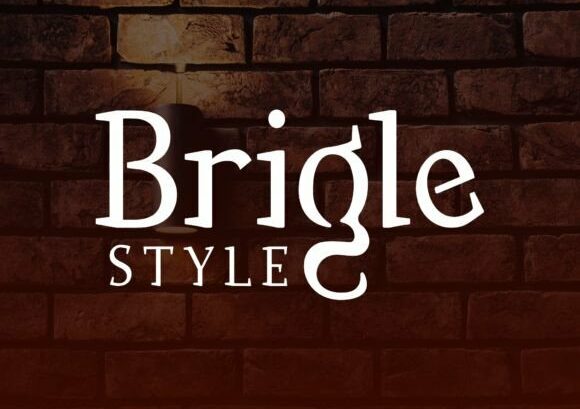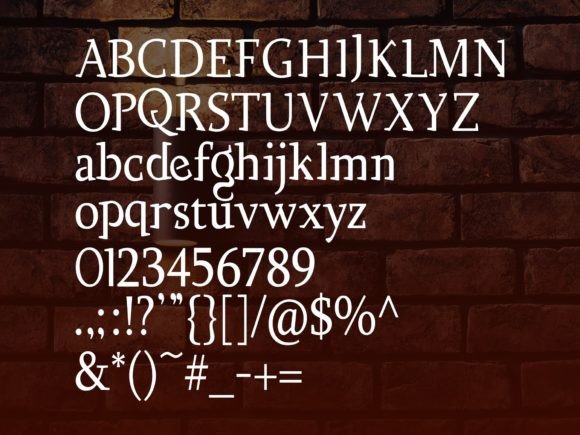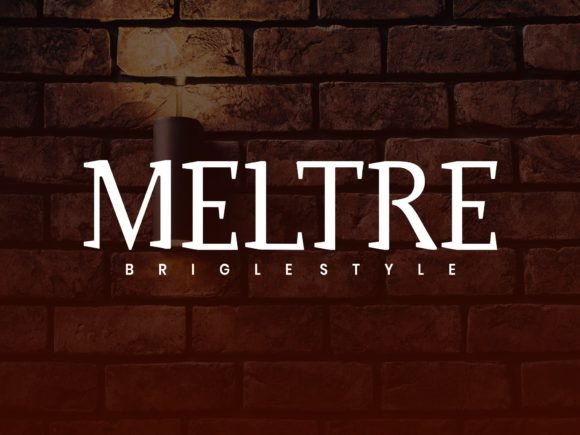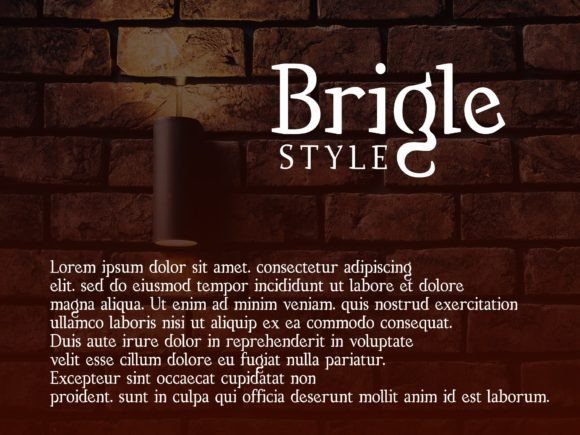
Brigle Style Font
BRIGLE STYLE FONT SPECIMEN
Brigle Style is a cool and modern slab serif font. Incredibly versatile, this font is suitable for a wide range of design ideas.